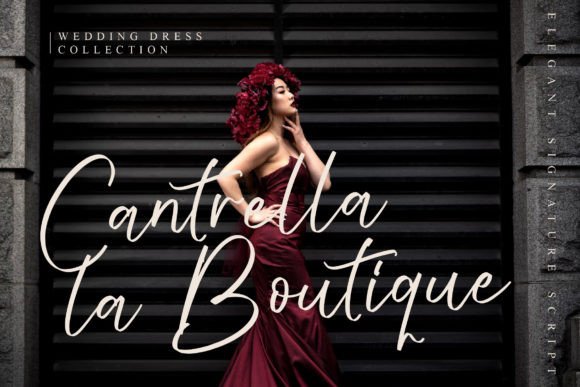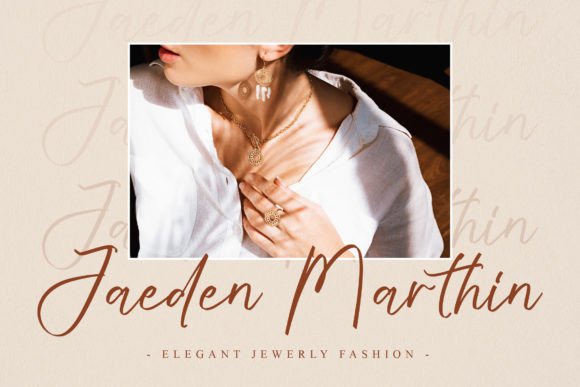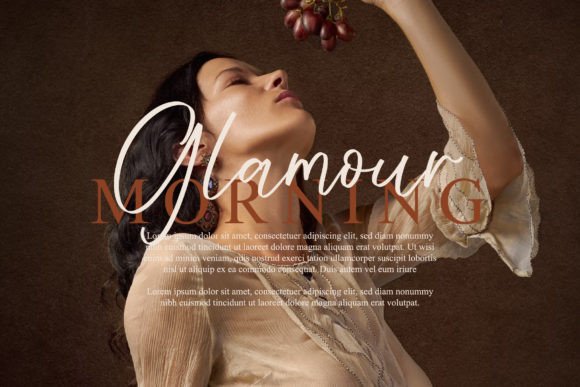
Introduction to Salterego Font
Salterego – Elegant Signature Script is suitable for any projects such as logos, branding projects, homeware designs, product packaging, mugs, quotes, posters, shopping bags, t-shirts, book covers, name cards, invitation cards, greeting cards, labels, photography, watermark, special events, and all your other lovely projects that need a beautiful script taste.
👤 Author Glorytype Studio